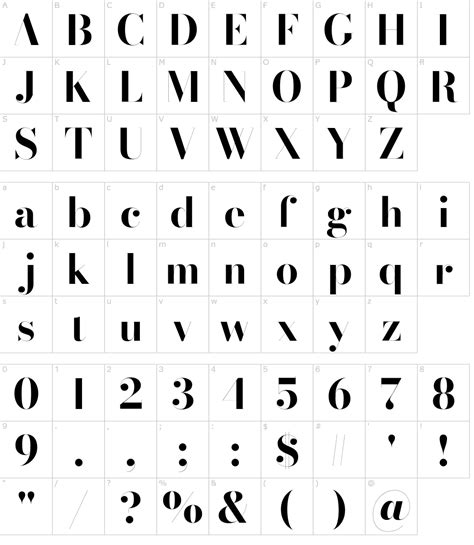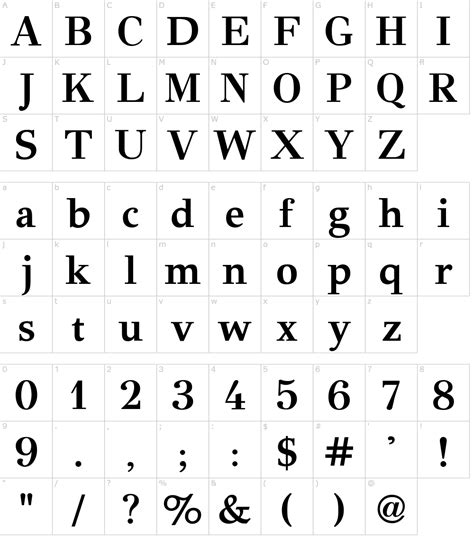
Alphabet 1800s Fonts: Elegant Typefaces for Vintage Designs
Readers, have you ever been captivated by the timeless allure of vintage designs? The intricate details, the elegant flourishes, the classic charm – there’s something truly special about them. And what plays a pivotal role in achieving that vintage aesthetic? Fonts, of course! Specifically, the alphabet 1800s fonts.
These fonts, born in a time of artistic grandeur and technical innovation, possess a unique beauty that transcends time. They evoke a sense of history, sophistication, and artistry that can instantly elevate any design. I've been a graphic designer for years, and trust me, when it comes to mastering the art of vintage design, understanding the nuances of these fonts is essential.
A Journey Through Time: The Evolution of Alphabet 1800s Fonts
To truly appreciate the charm of 1800s fonts, it helps to understand their historical context. The 19th century was a period of remarkable change in typography. The Industrial Revolution brought about new printing technologies, and with it, a blossoming of typographic experimentation. This era saw the rise of various typefaces, each with its distinct style and character.
The Birth of the Modern Typeface: The Legacy of Bodoni
One of the most influential figures in the history of 1800s fonts was Giambattista Bodoni. His work marked a departure from the traditional serif fonts of the past, introducing a new level of refinement and elegance. Bodoni fonts, characterized by their sharp serifs, high contrast between thick and thin strokes, and overall geometric structure, set a new standard for typefaces. This style, later known as "modern," became a cornerstone of typography, influencing countless fonts that followed.
The Rise of the Romantic: The Flair of Didot
Interestingly, while Bodoni's work focused on clean, geometric shapes, the French type designer Firmin Didot was pursuing a different aesthetic. Inspired by the Romantic movement, Didot championed a more organic and flowing style. His Didot fonts are known for their delicate serifs, high contrast, and slightly bracketed serifs, adding a touch of grace and elegance to any design.
The Flourishing of the Script: The Graceful Hand of Copperplate
While serif fonts dominated the printing world, the 1800s also saw the rise of script fonts. These fonts mimicked the flowing strokes of handwritten calligraphy, adding a touch of personal charm and artistry to printed materials. Copperplate script, in particular, gained immense popularity for its intricate flourishes, graceful curves, and overall refined elegance.
Exploring Popular Alphabet 1800s Fonts: A Typographic Treasure Trove
The 19th century was a prolific era for font design, and countless variations of these styles emerged. Let's explore some of the most popular and timeless alphabet 1800s fonts that continue to charm designers today.
Bodoni: The Classic Modern
The Bodoni typeface itself remains a timeless classic. Its sharp serifs, high contrast, and geometric structure perfectly embody the modern aesthetic. It's a versatile font suitable for headlines, logos, and elegant branding.
Didot: The Romantic Flair
Didot, with its delicate serifs, high contrast, and slightly bracketed serifs, adds a touch of romantic elegance to any design. It's ideal for invitations, posters, and other projects where a touch of sophistication is desired.
Goudy Old Style: The Timeless Serif
While Bodoni and Didot represent the modern and romantic styles, Goudy Old Style embodies the more traditional serif aesthetic. Characterized by its gentle curves, bracketed serifs, and overall harmonious structure, Goudy Old Style is a versatile font suitable for both body text and headlines.
Garamond: The Classic Serif
Another timeless serif font, Garamond, is a true workhorse in the design world. Its subtle serifs, moderate contrast, and overall balanced appearance make it highly readable and suitable for a wide range of projects.
Copperplate: The Elegant Script
The Copperplate script font family is a perfect example of the elegance and artistry of 1800s script fonts. Its fluid strokes, graceful curves, and intricate flourishes add a touch of classic charm and sophistication.
Why Use Alphabet 1800s Fonts: The Power of Vintage Design
Beyond their historical significance, these fonts offer a unique aesthetic that can elevate any design. Here's a look at some of the key reasons why designers continue to gravitate towards alphabet 1800s fonts:
Unmatched Elegance and Sophistication
The inherent refinement and grace of these fonts instantly elevate any design. Whether you're crafting a logo, designing a website, or creating printed materials, 1800s fonts add a touch of class and distinction that sets your work apart.
Timeless Appeal and Nostalgia
These fonts evoke a sense of history, nostalgia, and timeless beauty. They transport viewers to a bygone era, evoking feelings of elegance, sophistication, and tradition.
The alphabet 1800s fonts are a treasure trove of typographic beauty and historical significance. They offer a unique aesthetic that can instantly elevate any design, adding a touch of timeless elegance, sophistication, and nostalgia. As you embark on your next design project, consider exploring these vintage fonts. They're a testament to the enduring power of classic design and offer a wealth of creative possibilities. And don't forget to check out our other articles on design and typography for more inspiration and insights.